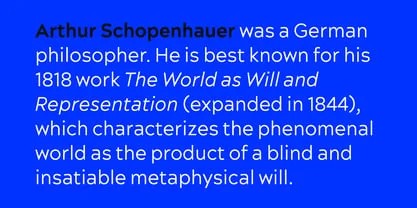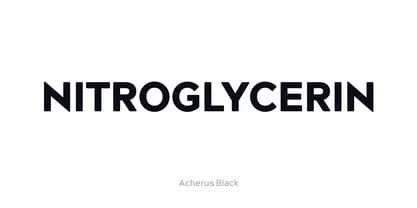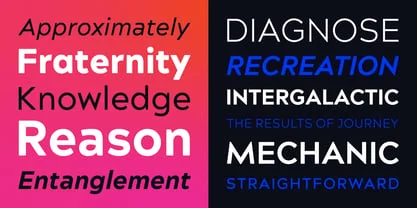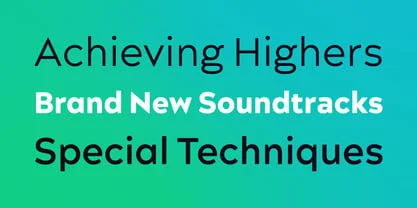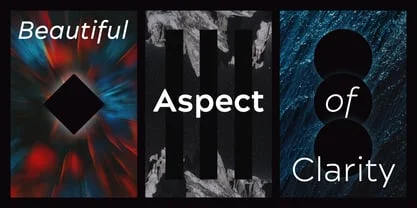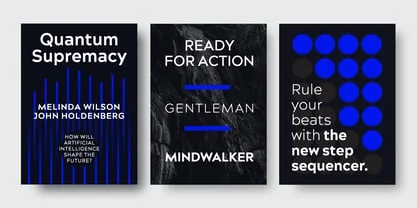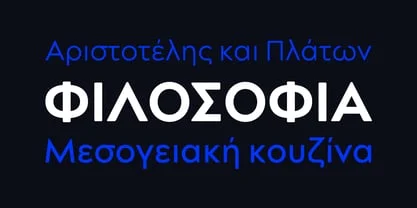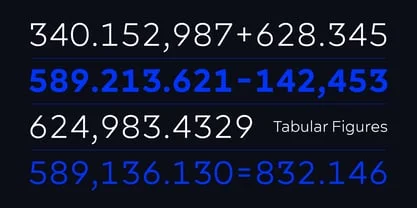
Acherus Grotesque Font
Typography shapes perception at a subconscious level. Acherus Grotesque leverages the kind of restraint that lets content lead to make every composition feel considered. The typeface brings a versatile sensibility to a broad range of creative disciplines, with controlled contrast that rewards close inspection that holds up whether the work is print-first or screen-first.
In practice, Acherus Grotesque proves particularly effective for signage systems, web design, environmental graphics, poster creation, product labels. Designers reaching for it find that the type decisions feel resolved rather than laboured — a useful quality when client timelines are tight.
The range of applications extends to brand identity systems, annual reports, advertising campaigns, packaging design. That breadth is deliberate: the proportions and spacing were stress-tested across a wide range of mock briefs before the typeface was finalised.
Pairing Acherus Grotesque with a contrasting serif or a neutral grotesque gives mixed-format layouts a clear visual grammar without requiring constant size adjustments to establish hierarchy.
Motion designers building title sequences and lower thirds find Acherus Grotesque a reliable choice for projects that demand both personality and restraint. The design avoids the self-conscious quirkiness that dates quickly, settling instead for considered distinctiveness that holds up over time.